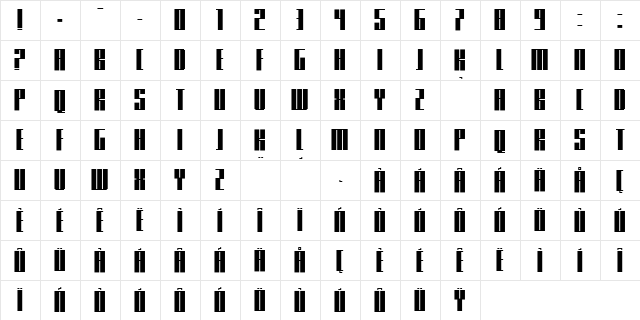
Complete Knifer 500 Regular glyph index. Displaying only characters natively supported by Knifer 500 Regular font.
Knifer 500 is a composed and adaptable typeface that performs quietly and consistently across a wide range of design contexts.